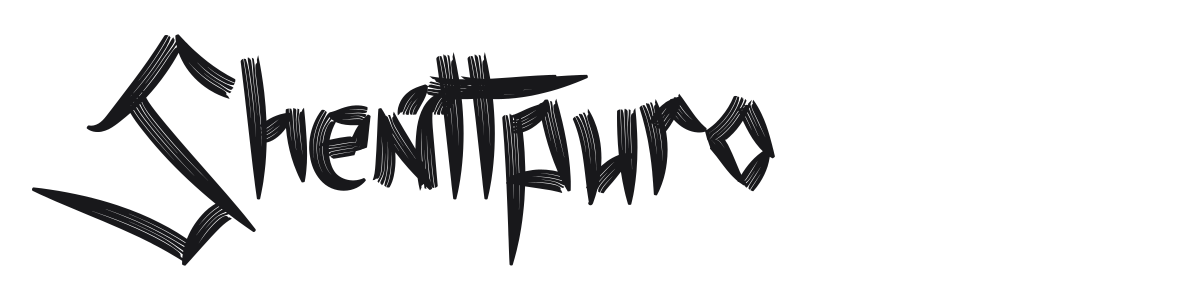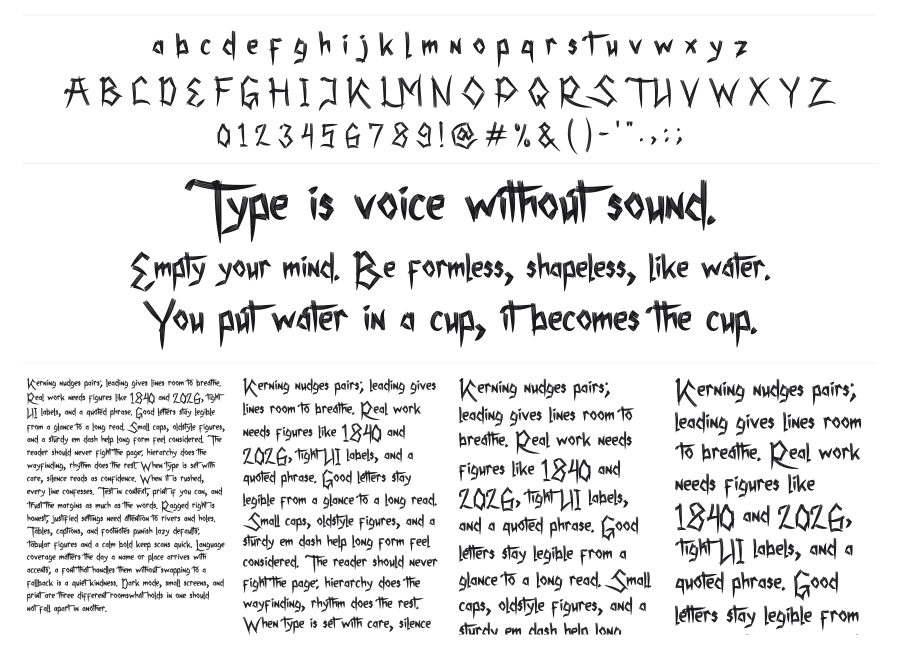
Shenttpuro
by Jadatype · Website
Shenttpuro is a heavy grunge script built from rough, scratchy strokes that look drawn with a dry brush dragged under pressure. The distressed texture runs through every character, giving headlines a raw, underground intensity. It fits naturally in metal album covers, horror posters, and anything that needs to feel genuinely unpolished.